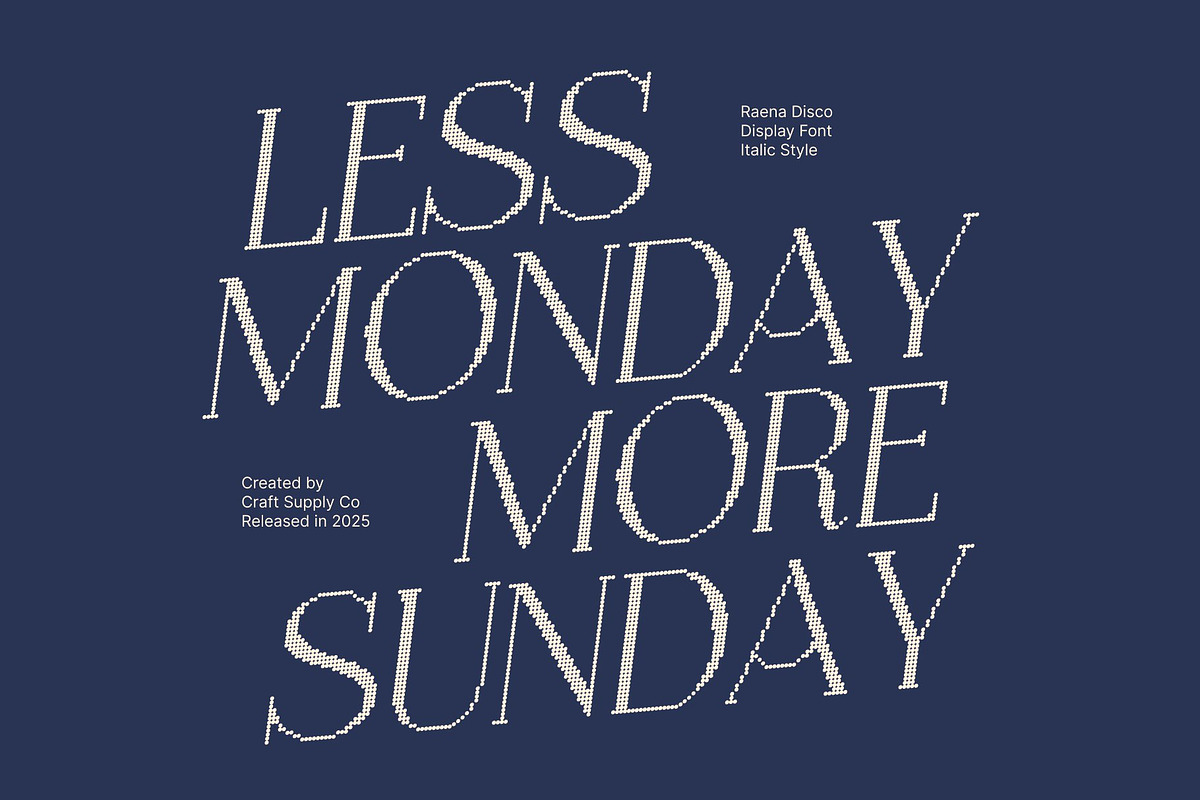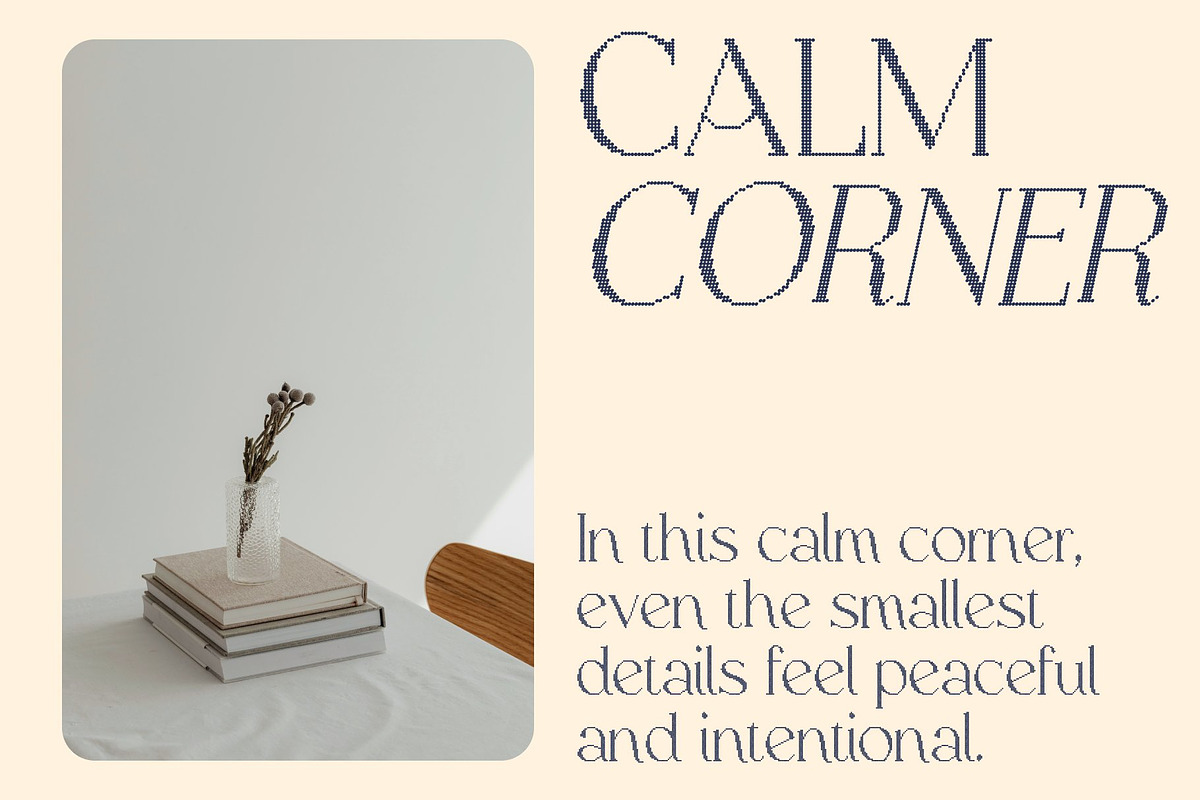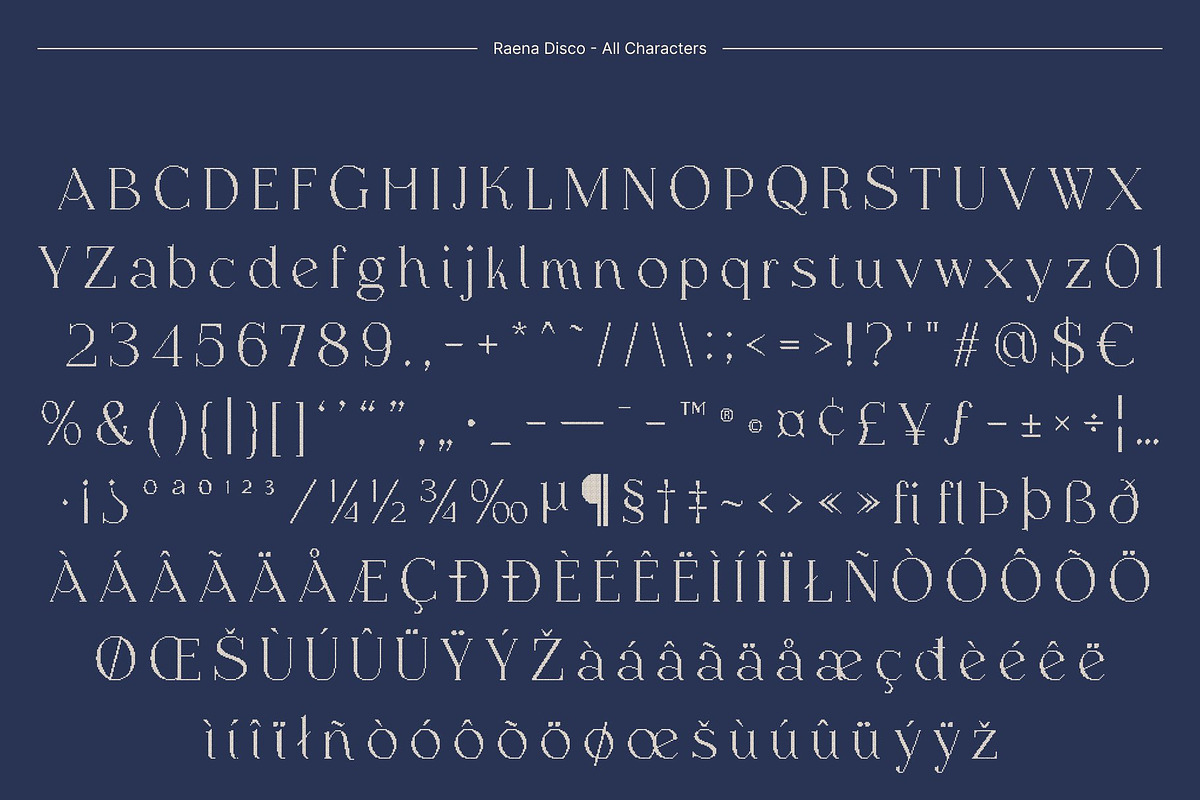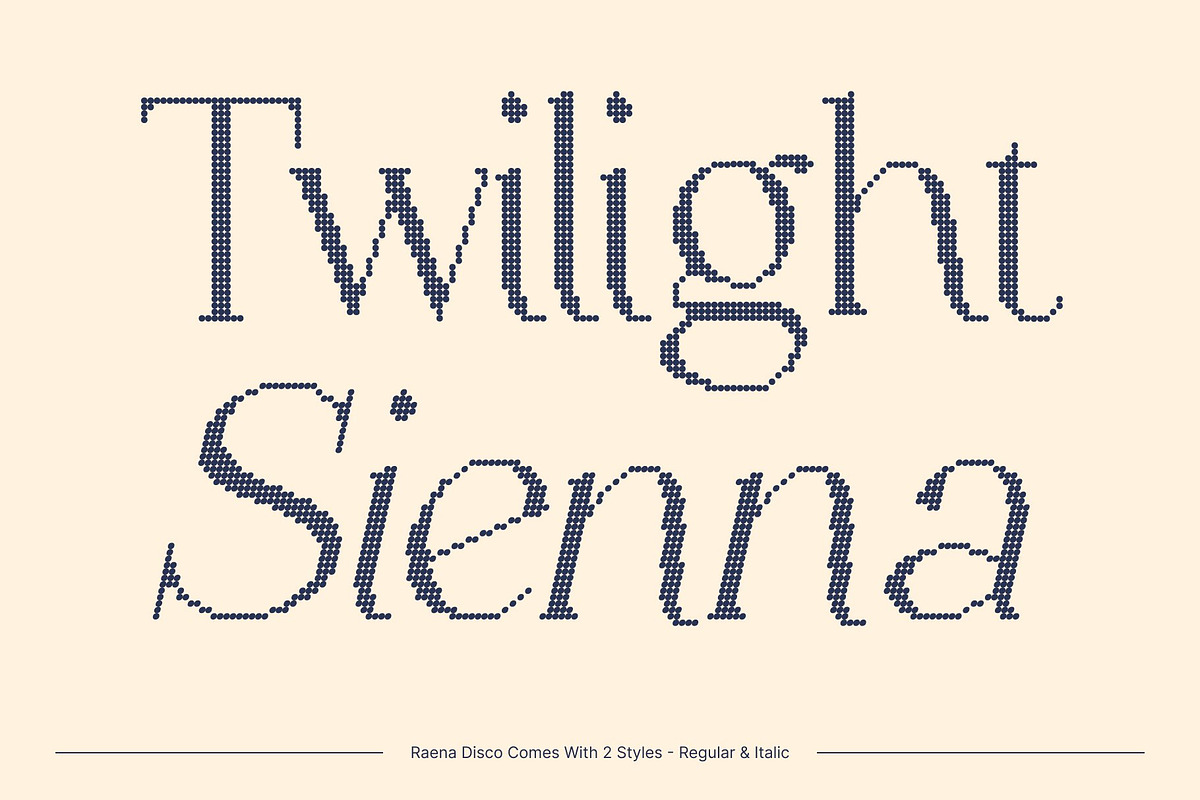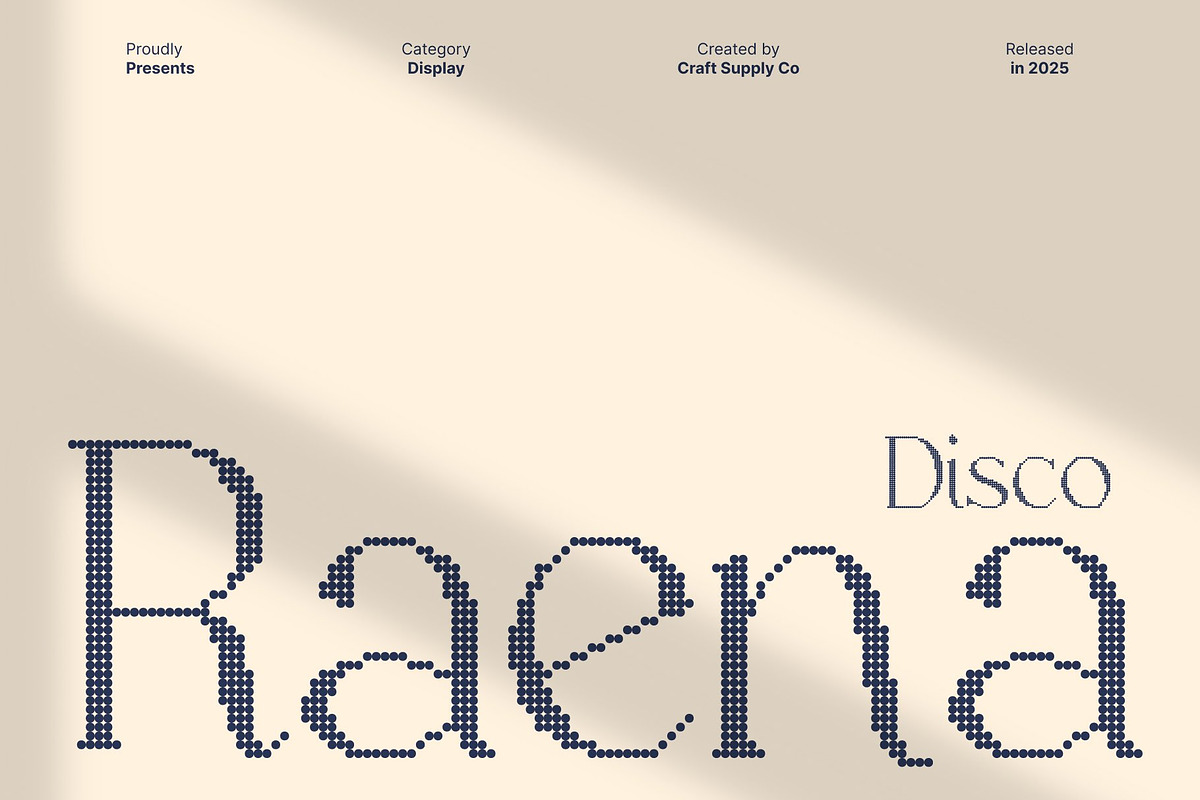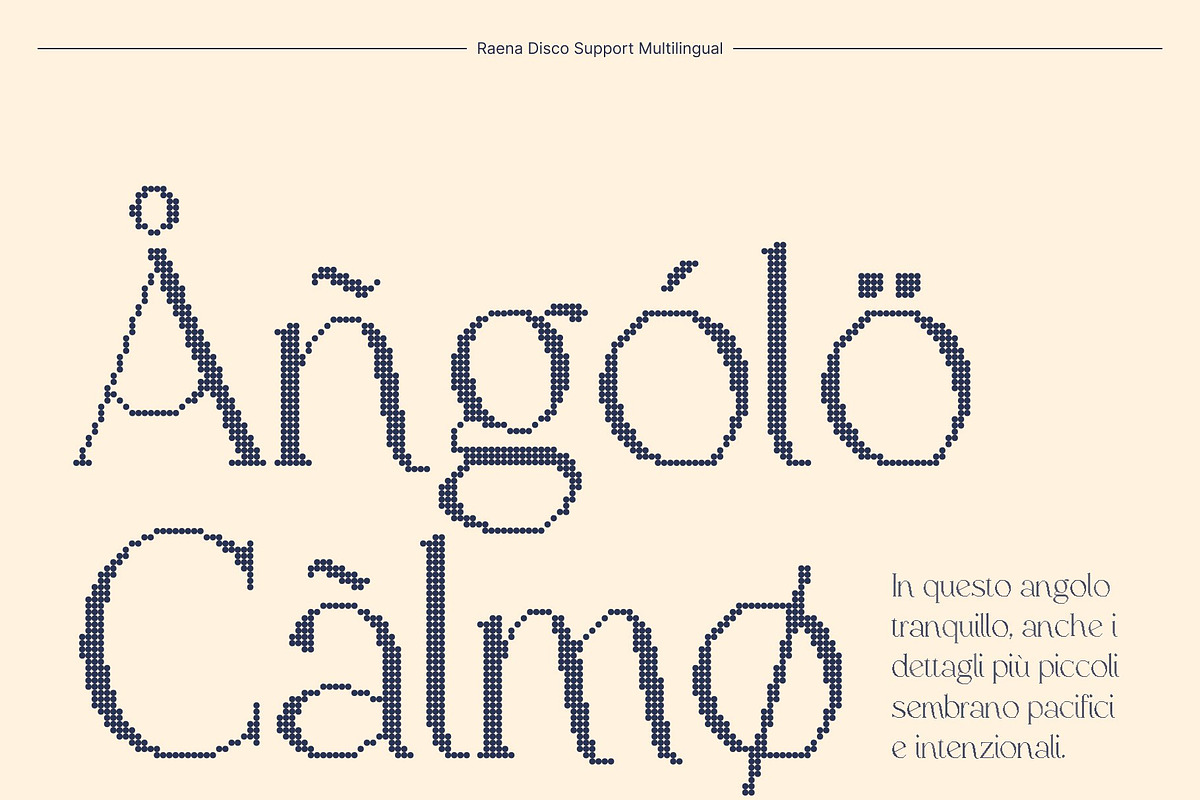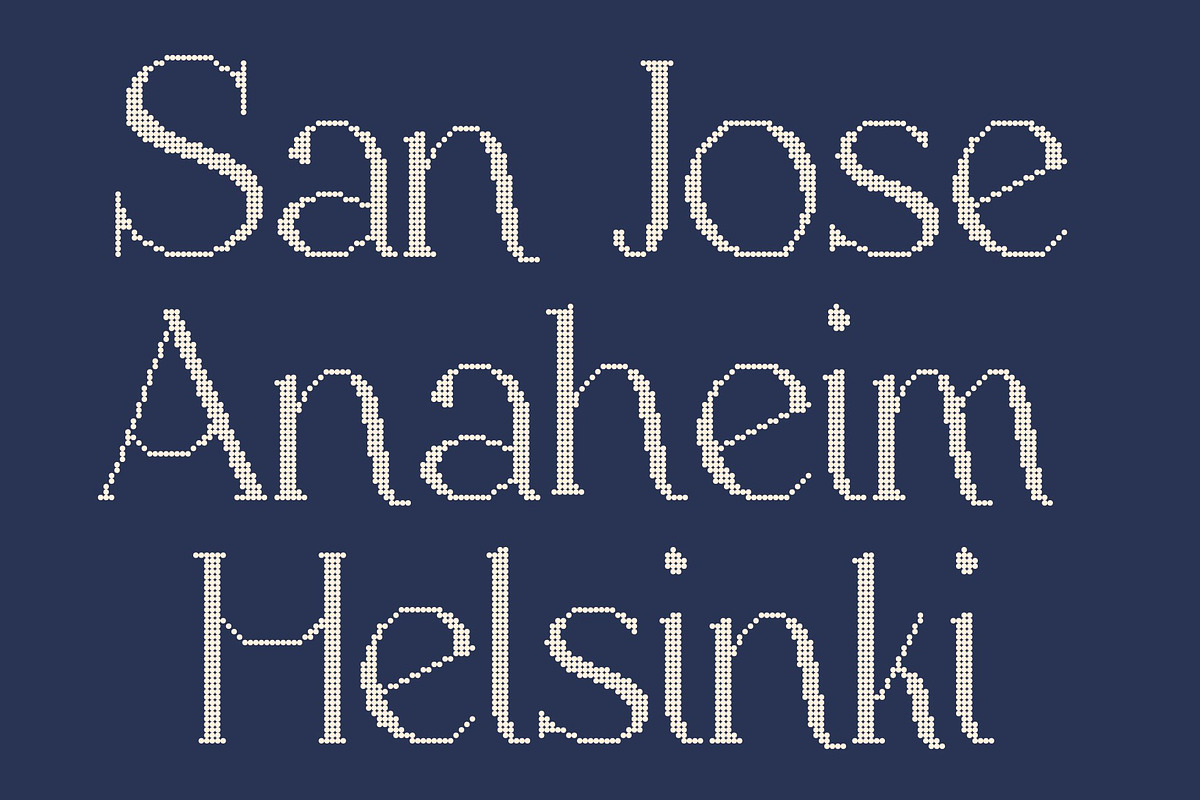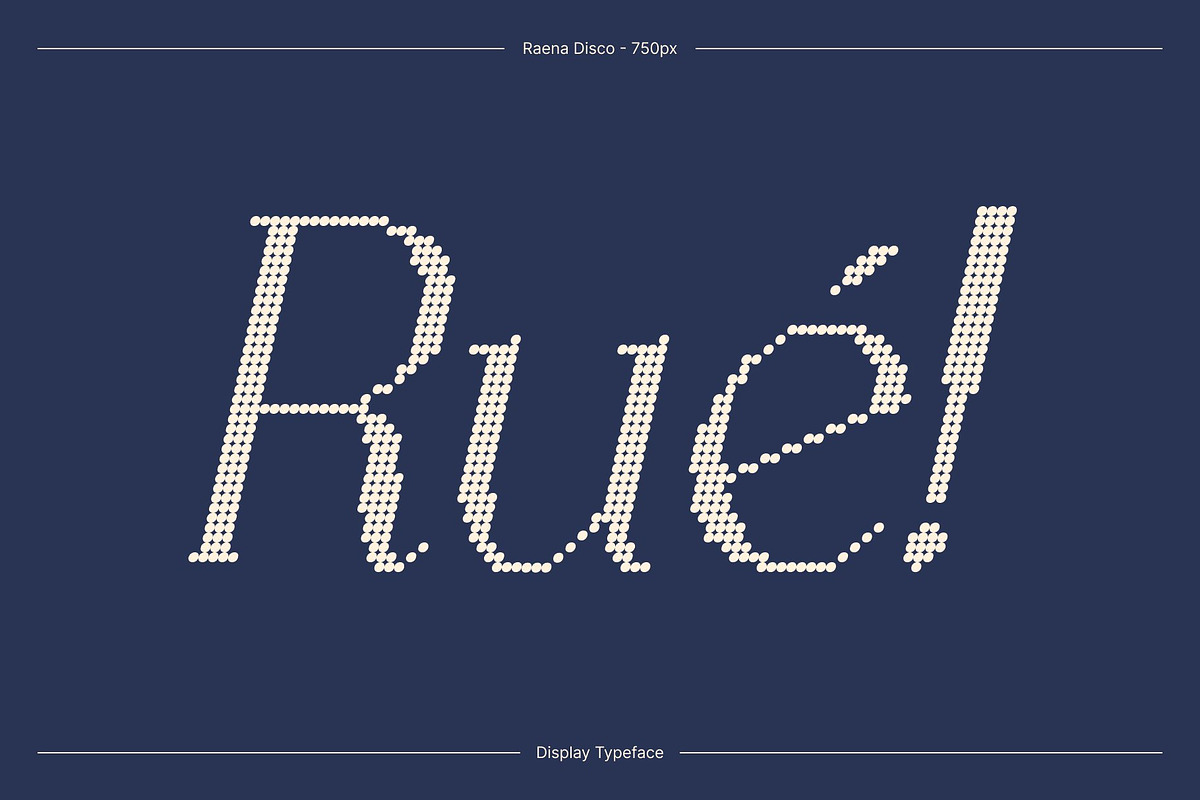
Raena Disco
Raena Disco – Luxury Serif with Glamorous Shine
Elegant Display Serif with High-End Appeal This is a refined luxury serif font crafted to deliver sophistication at every glance. Its polished shapes, graceful curves, and balanced proportions create a premium look that elevates any visual composition. Designed as a display font, this font in projects that demand elegance, clarity, and modern refinement.
Disco Shimmer for Modern Glamour What sets this font apart is its glamorous disco shimmer. This radiant effect adds sparkle, depth, and a stylish glow, transforming the font from simply elegant to truly captivating. The shimmering details bring a unique vibrance, making perfect for designs that need to feel fashionable, upscale, and irresistibly eye-catching.
Perfect Choice for Luxury and Beauty Branding This font’s refined character makes it ideal for high-end branding and beauty-centered designs. Whether you’re crafting logos, packaging, or editorial layouts, this font offers a sophisticated personality that enhances elegance and exclusivity. Its shimmering accents bring a sense of luxury and modern charm to every application.
Versatile for Invitations, Headlines, and Premium Projects Beyond branding, this font works beautifully in invitations, magazine titles, fashion promotions, and stylish event materials. Its bold yet graceful presence ensures maximum visual appeal while maintaining readability and class. For designers seeking a chic, modern, and luxurious aesthetic, delivers exceptional impact.
- Raena Disco Regular
- Raena Disco Italic